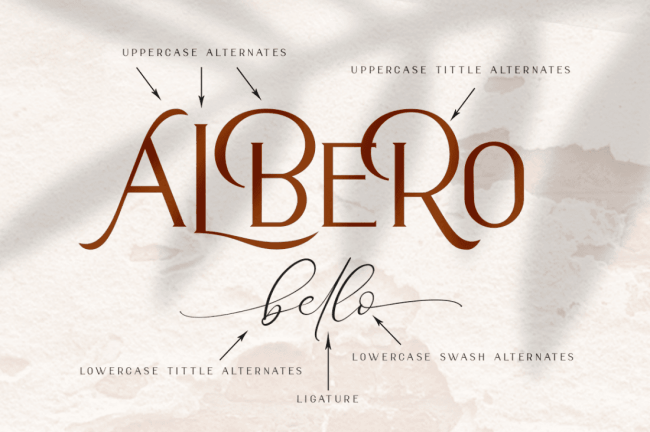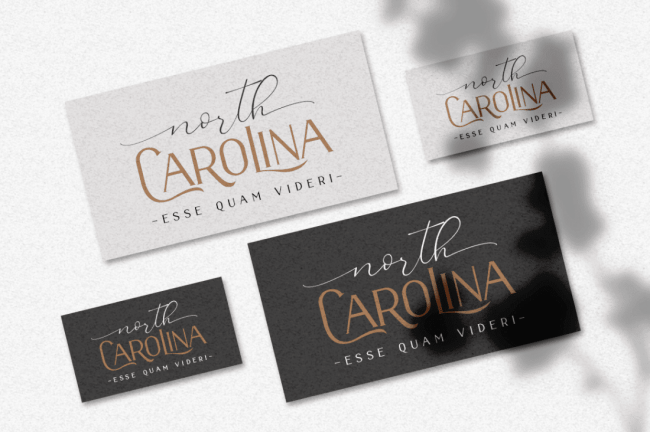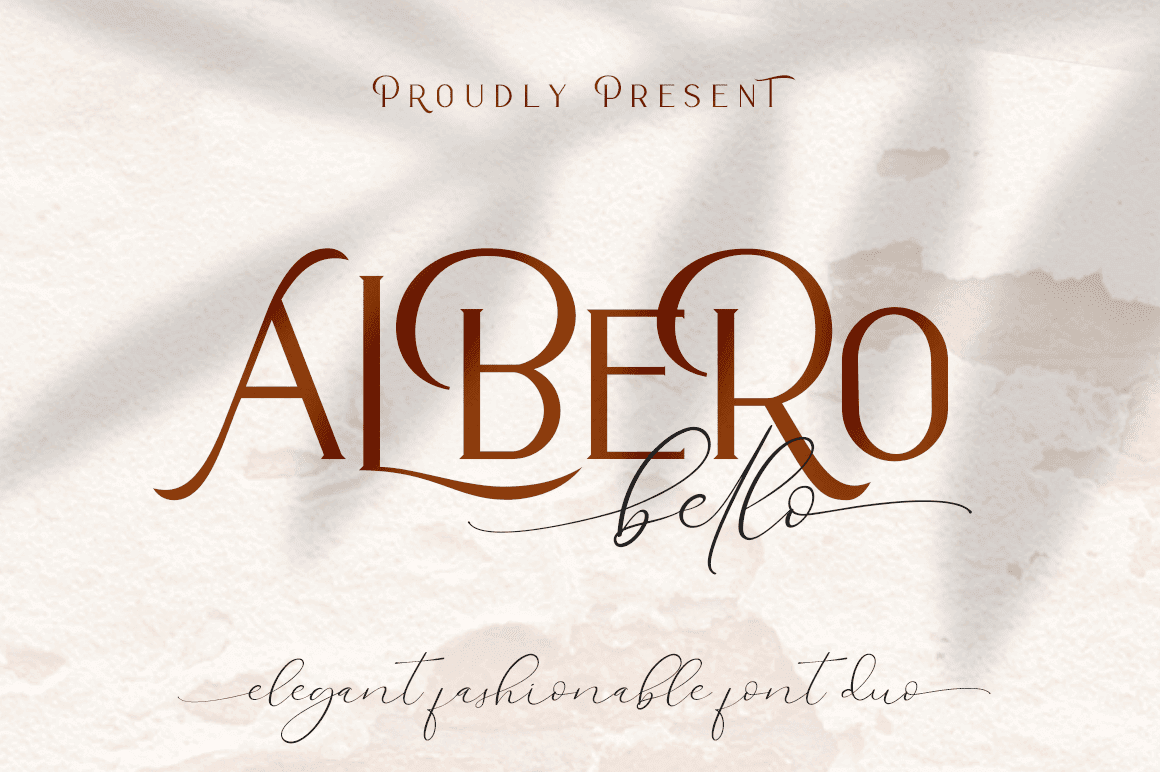
Meet Alberobello, a modern duo of fashionable fonts. Alberobello Serif sports elegant uppercase letters, numerals, punctuation and ligatures. Alberobello Script features a complete set of gorgeous lowercase glyphs with beginning and ending alternates for a realistic hand-lettered style. It’s the only choice for projects ranging from wedding invitations to branding.